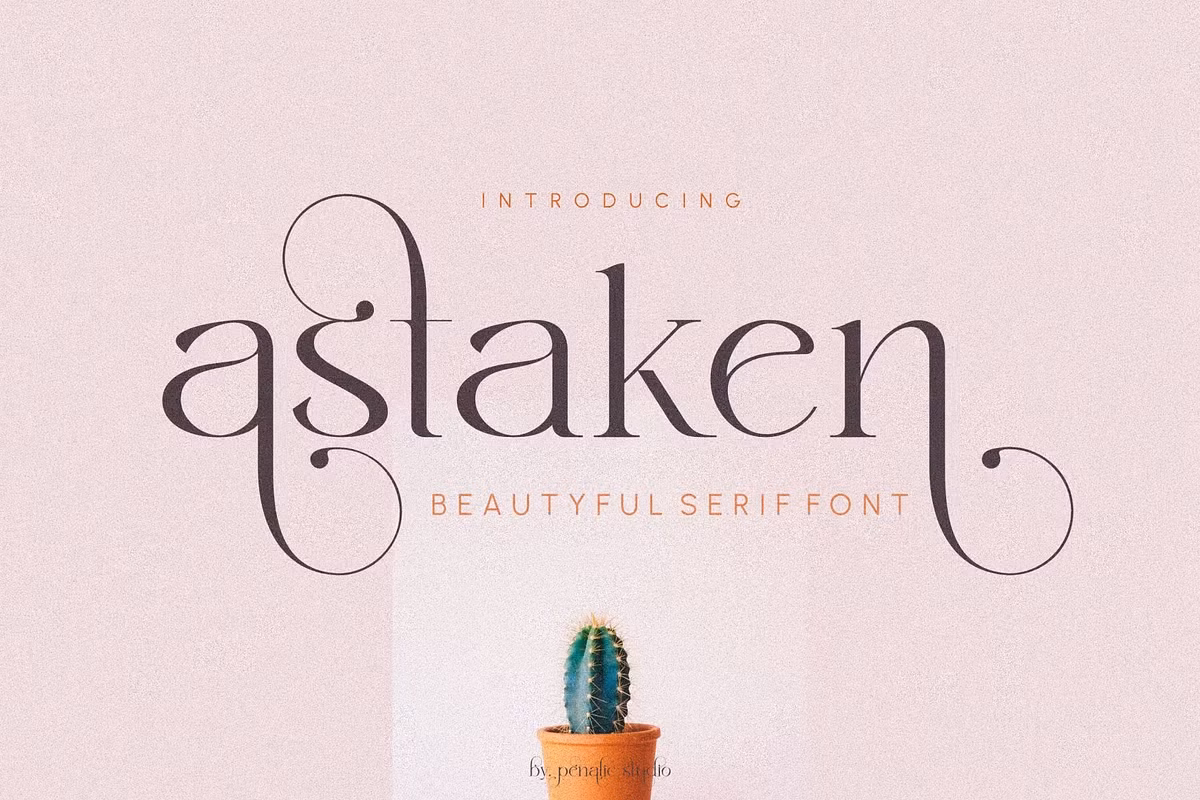
Astaken – Beautiful Serif Font Free Download is a graceful and refined typeface that combines timeless serif elegance with a touch of artistic flair. Please note, you are required to purchase this font for commercial use. It is available for free download for testing and personal projects only.
With its high-contrast strokes, delicate curves, and stylish details, Astaken is perfect for fashion editorials, branding, invitations, packaging, and high-end digital content. It adds charm and professionalism to your typography, making every word look intentional and beautifully crafted.